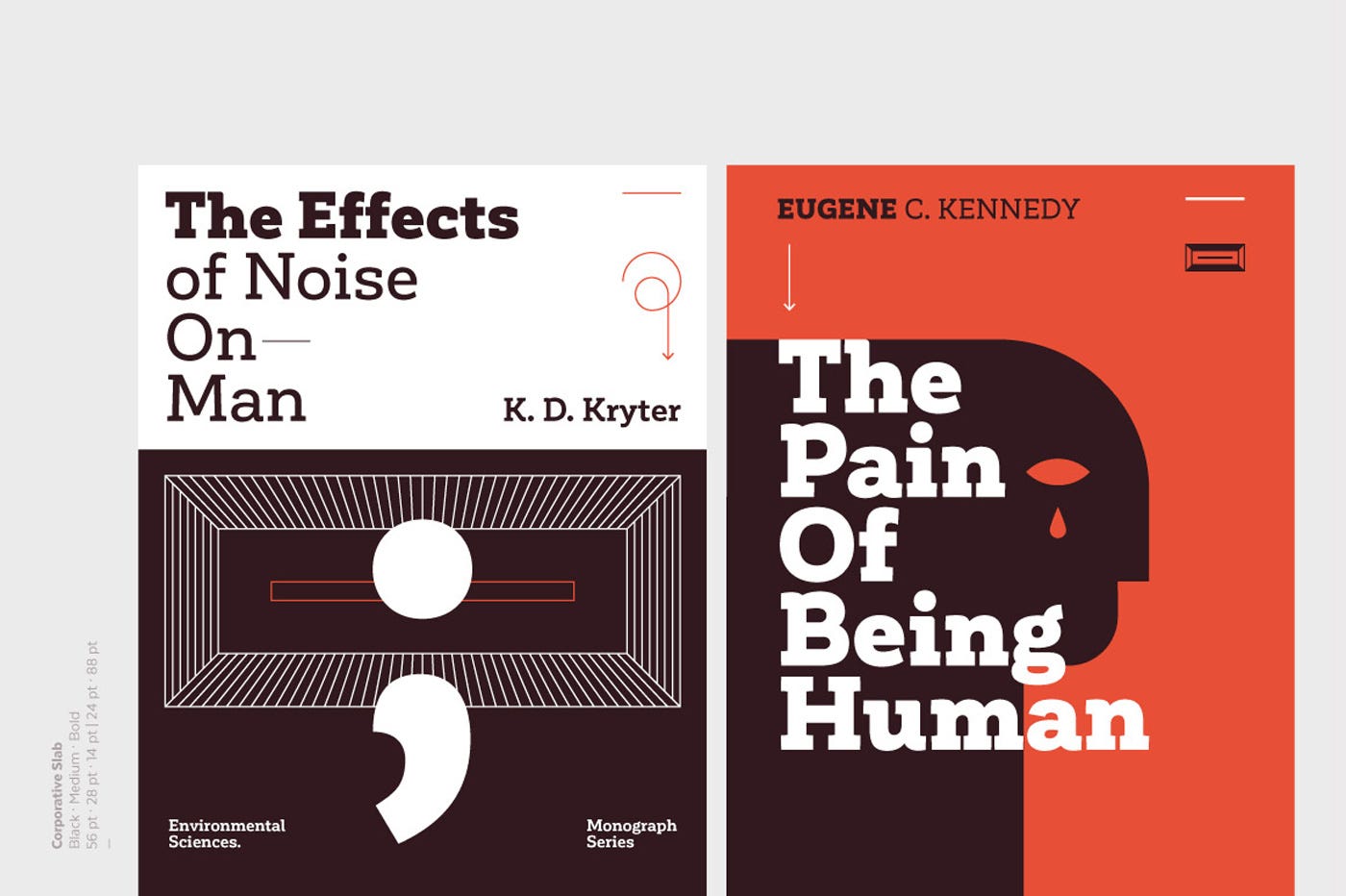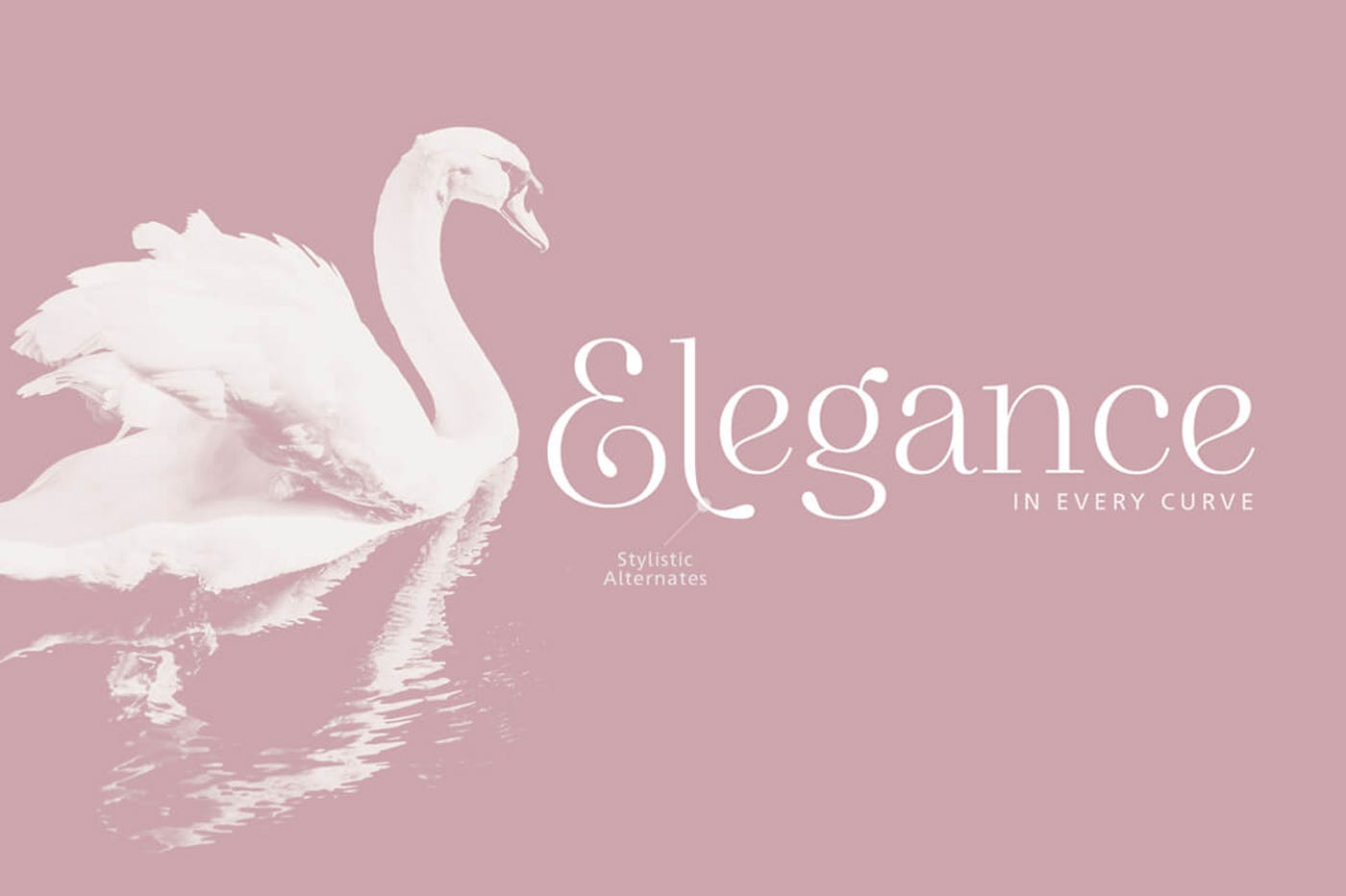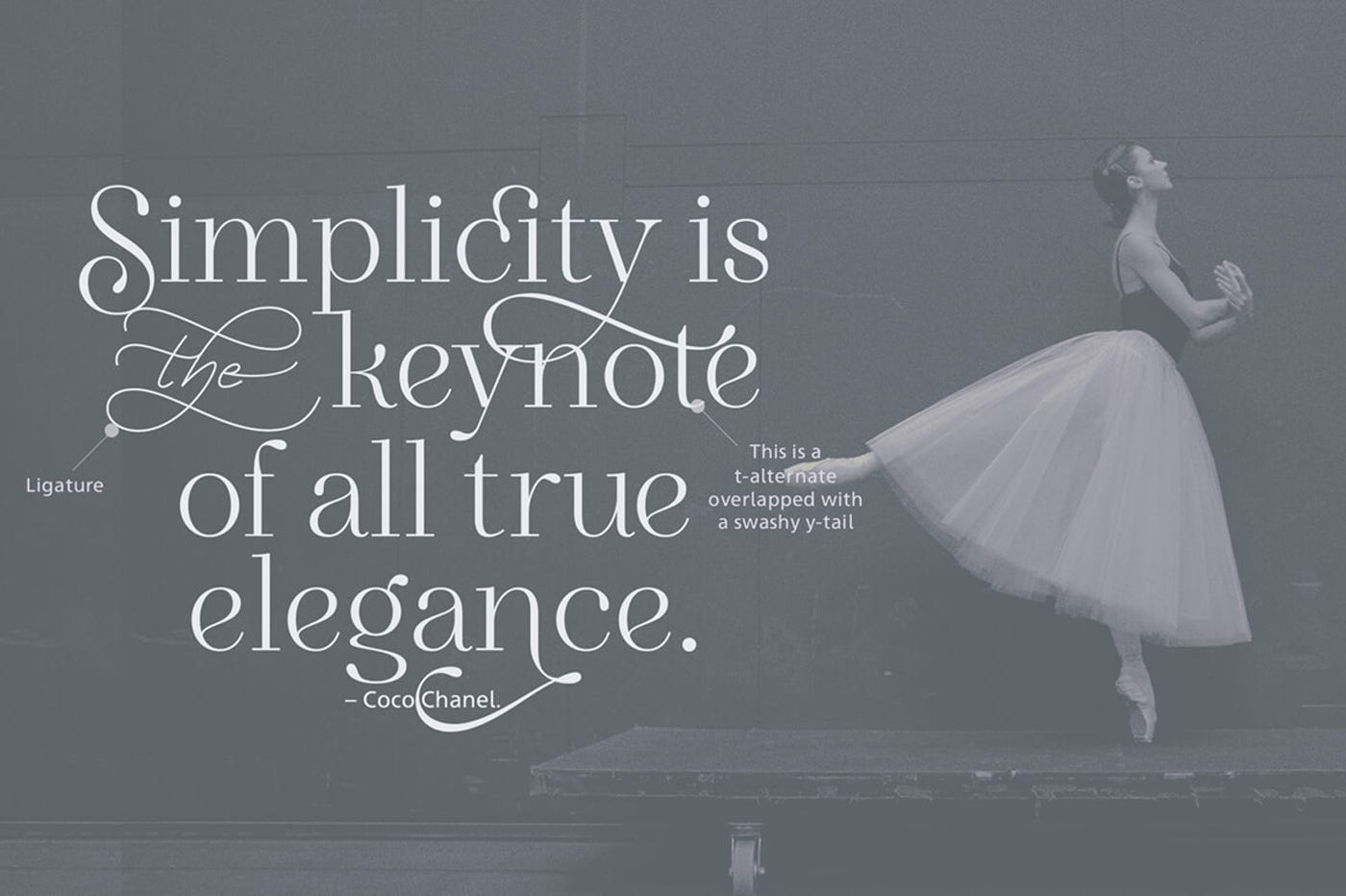
The Deliciously Versatile Font Collection
Comprehensive Package
I think it’s fair to say that you won’t find a better deal. Helpful in times like these where money is tight and you maybe need to update your portfolio as cheaply as possible because you are searching for a new job due to Covid-19. So let’s take a closer look what’s inside this bundle. You’ll find some exceptional typeface designs that are ideal for logos, headings, and producing great typography for your graphic design projects. Each one in this bundle is a comprehensive package with multiple weights, styles, and alternate characters. You also get the web fonts, usually a very expensive addition. You get them in several folders like desktop fonts, web fonts, a quick install etc, making it handy to import them into your font application of choice. Mine is RightFont by the way and just so you know they currently have a COVID-19 Response: 30% limited time offer! Here are a few of my personal favorites in this bundle…
Corporative Slab
The thick terminals give it a strong personality and distinctive traits. Original main strokes and rounded edges have been kept untouched in order to find a balance between both versions. Corporative Slab is the perfect choice for large-scale display use and it is also suitable for use at small sizes. This font works well for logos, posters, signage, packaging, branding, etc. You’ll get 16 styles in this package.
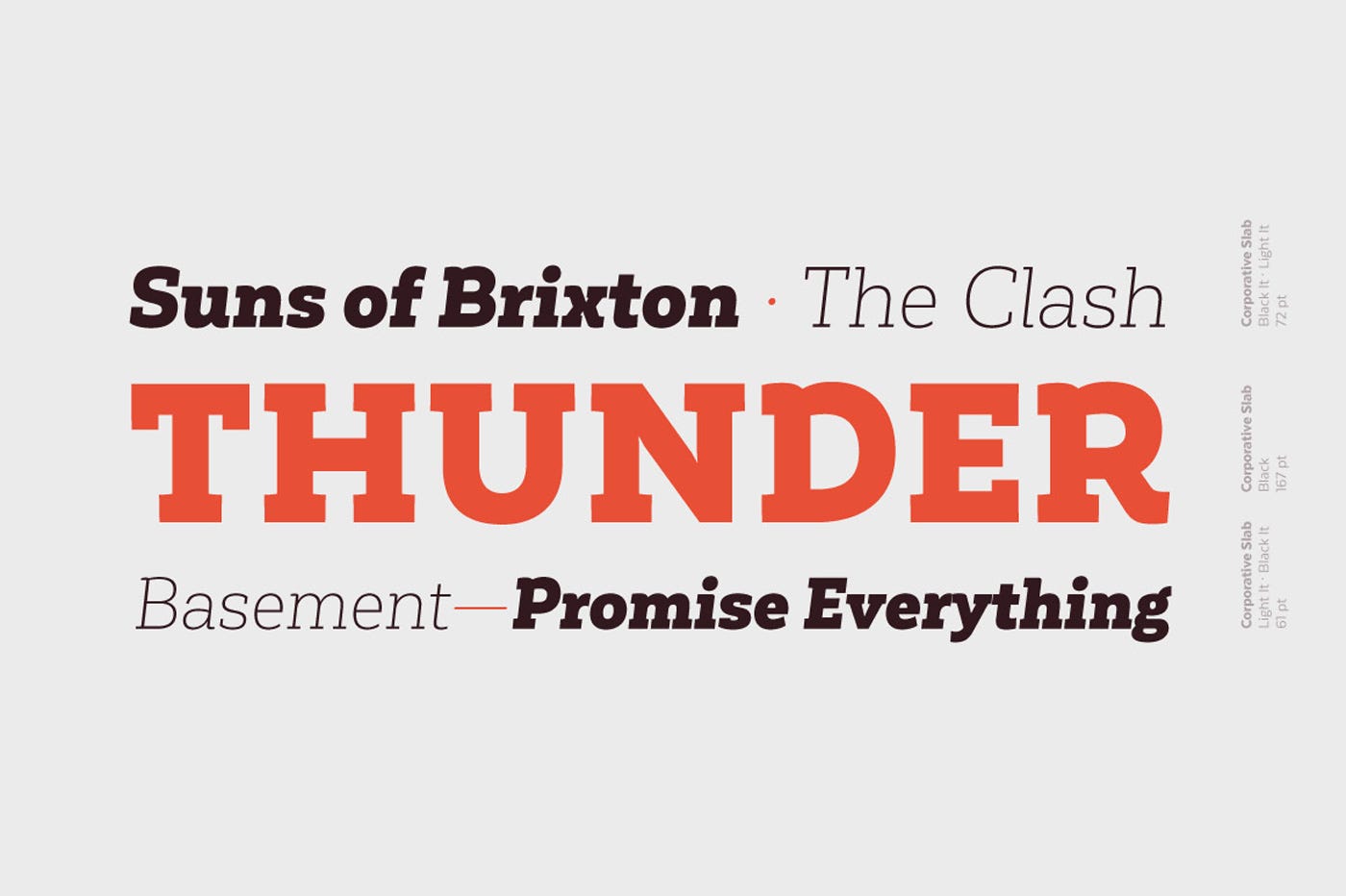
Zeit
While fashions come and go, style is eternal. True to its name, Zeit is an ageless serif font family, distinct yet reassuringly familiar and trustworthy. From magazines to mobile apps, branding to advertising, Zeit covers everything with poise. The font family is equipped with many handy and carefully thought features. Small capitals and small capital figures, old style figures, subscript and superscript figures and fractions are intrinsic to the design.
For a bit of flair, look for the swash alternates included in the italics — along with variants of the characters g and y. Look no further, Zeit is rigorously designed from head to toe — as only true quality can stand the test of time.
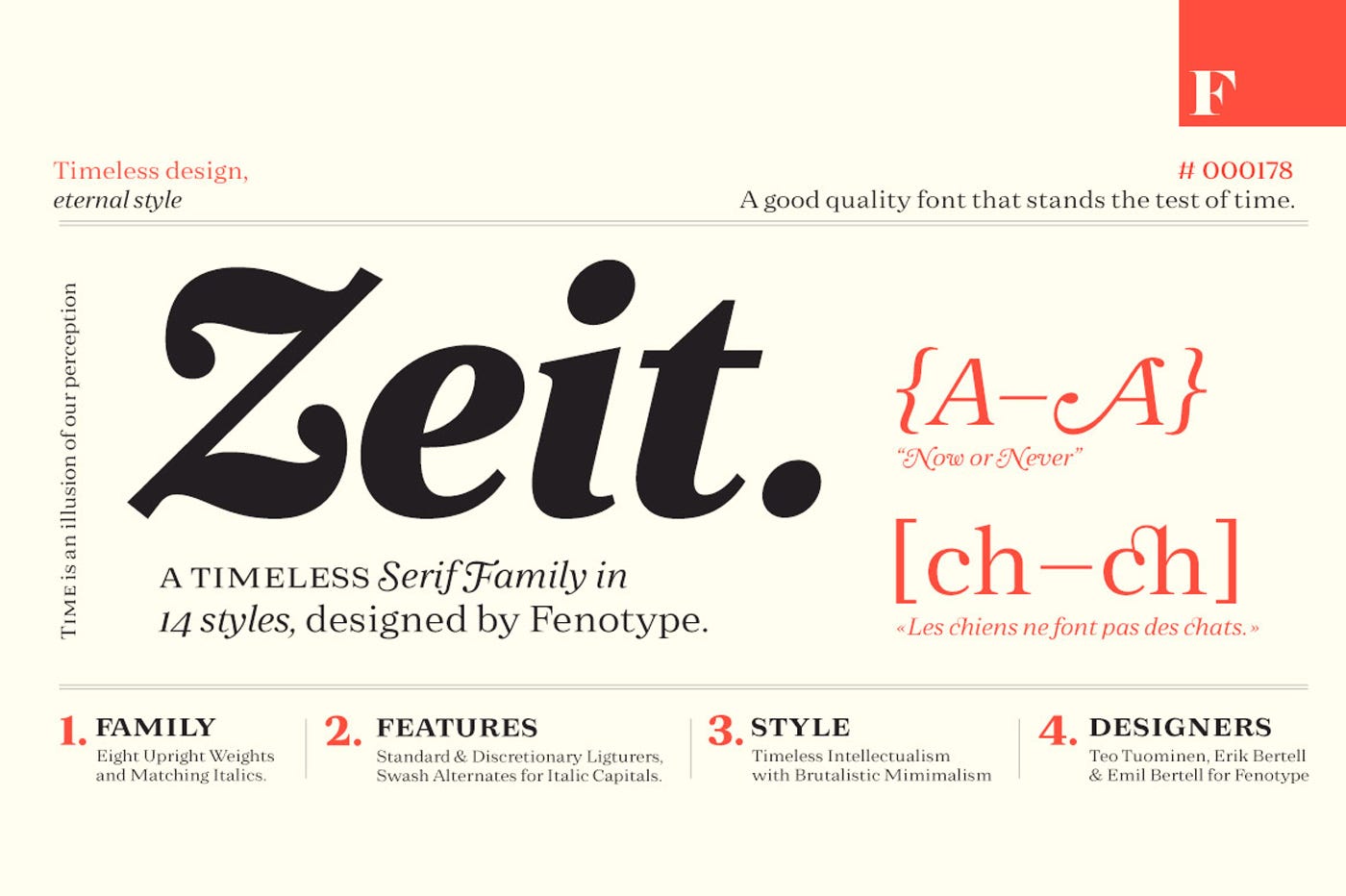
Balerno
Balerno Serif is a modern multilingual elegant Didone serif enhanced by ligatures, alternates and swashes. Balerno is a very versatile font family — with its classic forms and modern features it will cover a wide range of design projects starting from greeting cards to magazines, wedding invitations, websites etc. The amount of alternates is tremendous, from simple stylistic alternates to swashes, ligatures and their alternates.
Gentle
Gentle is a modern soft serif typeface. Gentle will be perfect for many projects: fashion, magazines, logo, branding, photography, invitations, wedding invitation, quotes, blog header, poster, advertisements, postcard, book, websites, etc.